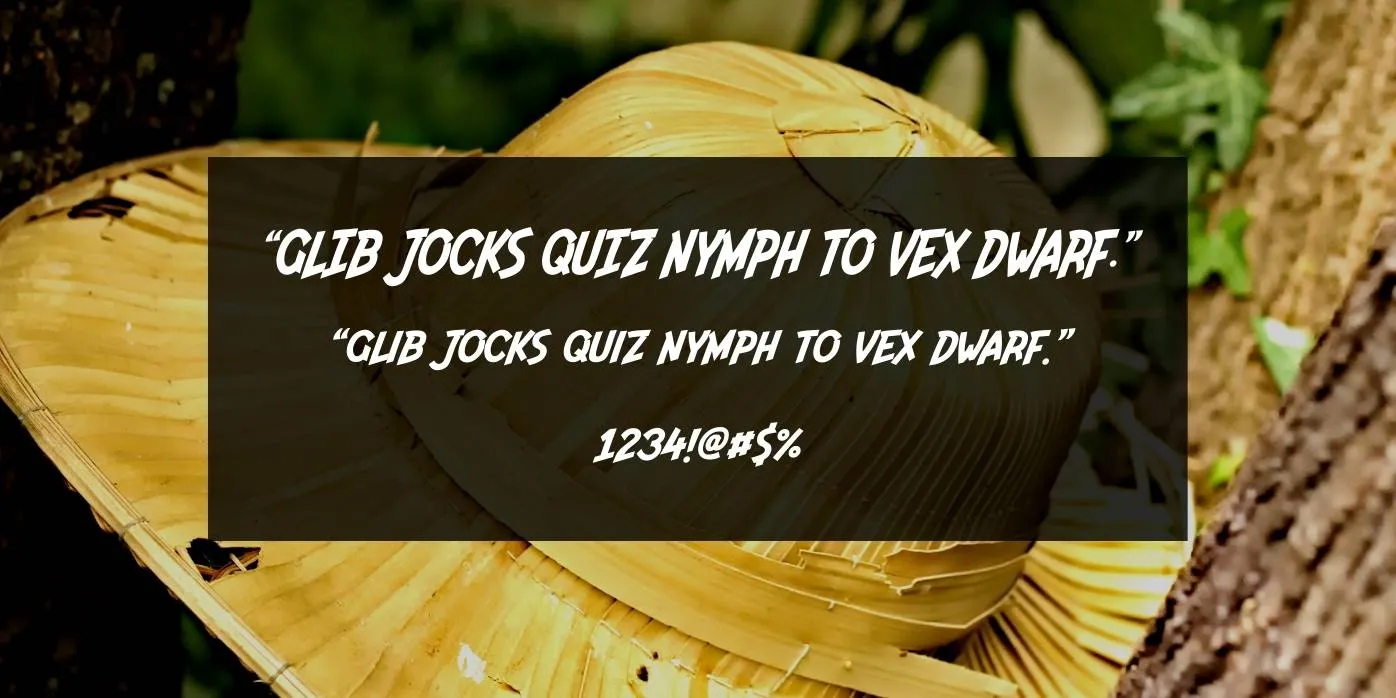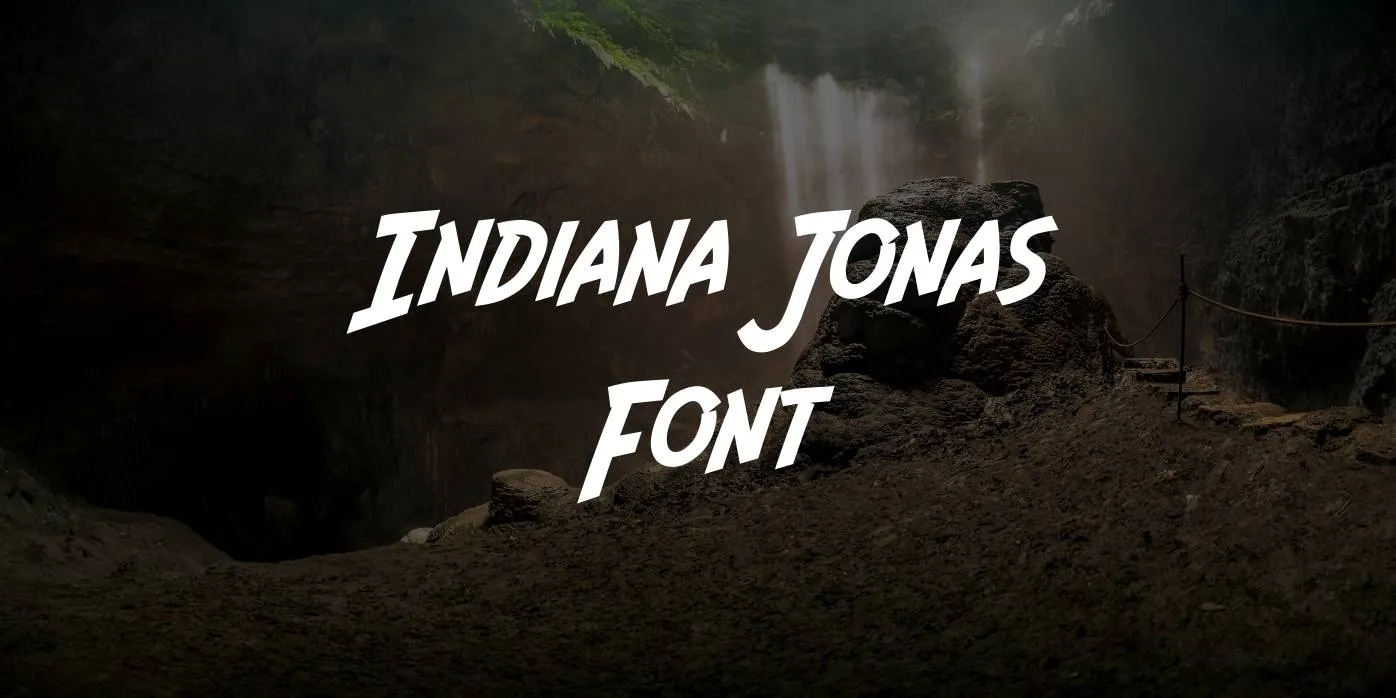
Indiana Jonas Font
Today, we consult on Indiana Jonas Font which was designed by Vit Condak. This stunning typeface belongs to the fancy font family. The design of this font was inspired by the classic design. This makes it perfect for any project that seeks to evoke a sense of movement or freedom.
This stylish font is best suited for headlines and short texts. It comes in three styles, regular and italic. Each style has over 100 modern glyphs. Indiana Jonas Font’s character set supports most Latin-based languages.
One more classic thing is its copy-and-paste function which is very suitable for various designs. Indiana Jonas Font is a classic for any project that needs a touch of elegance and class. With its beautiful design, this font will definitely make your work classic. Another similar font is happy sans font is perfect for different designs.